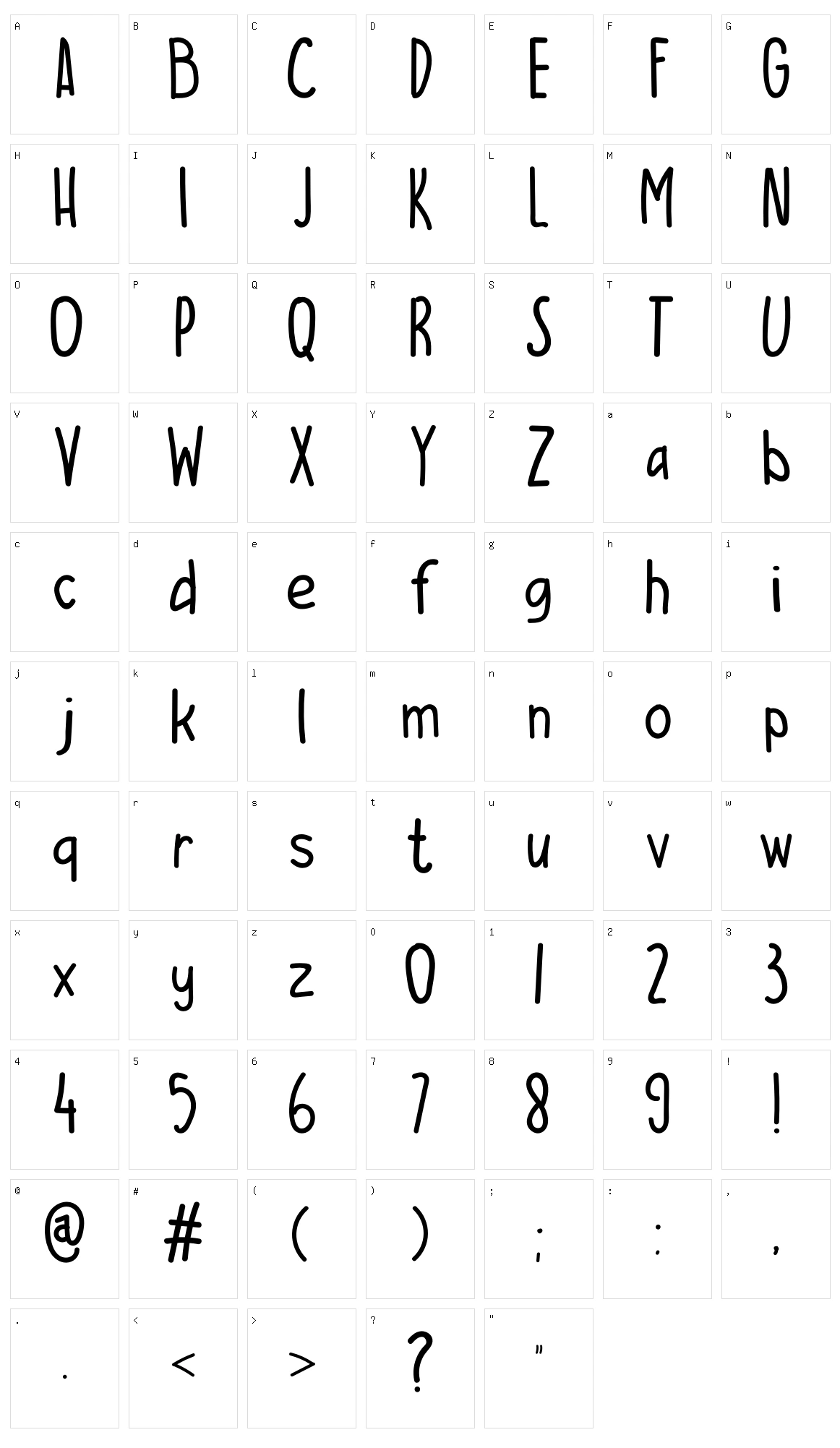
The free font Es Campur Enak is carefully designed by Arendx Studio, showcasing a thoughtful balance of creativity and usability and falls under the Script font style. When you download the ZIP file, it contains only 52.35 KB of font files, making it lightweight and quick to download. Please review the license details below to understand permitted usage and distribution rights. If license information is not available, we recommend using this font for personal projects only or contacting the author directly for commercial usage permissions.